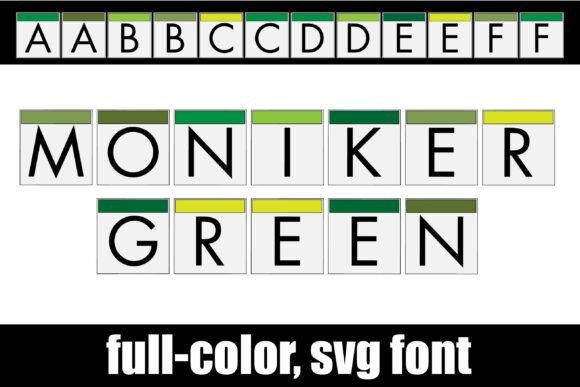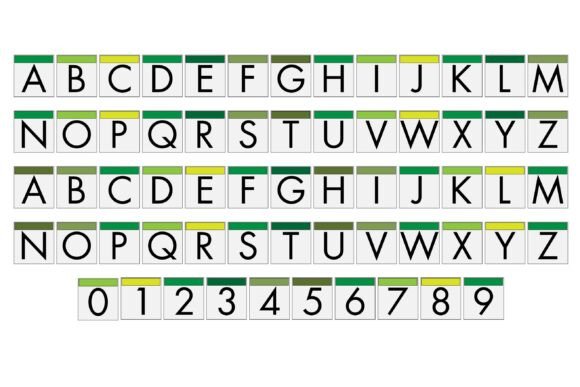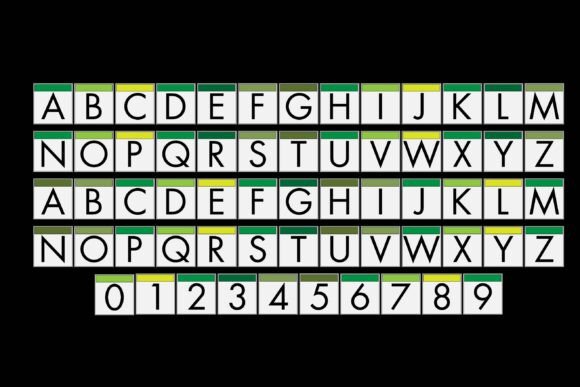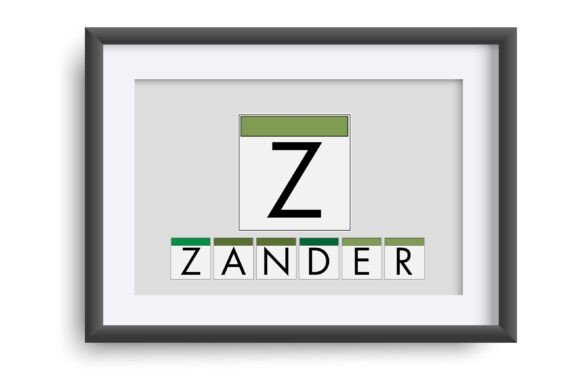
Moniker Green Font
About the Moniker Green Font
We are excited to introduce Moniker Green Font, a must-have typeface for any serious designer. This full-color font features a simple sans serif font on green playing cards. There is an alt version you can access through your system’s character map that contains additional colors of all the letters. This font works best for titles, displays, posters and more. Please note color fonts will show as black in non compatible programs. This font type is compatible with Silhouette Studio. Full-color SVG fonts are the perfect way to add a touch of personality to your designs. With a full range of colors and styles to choose from, you can create anything from simple text logos to complex illustrations.